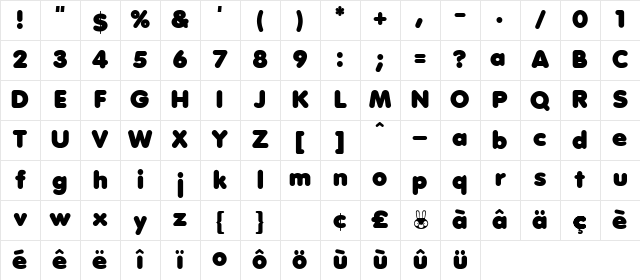
Anja Eliane accent Nornal Free Font
Anja Eliane accent Nornal
Style: Nornal
Design Context for Anja Eliane accent
Anja Eliane accent is a composed and adaptable typeface that performs quietly and consistently across a wide range of design contexts.
Pro Tip: Use Anja Eliane accent in both headline and body roles to test its range before committing to a single application.